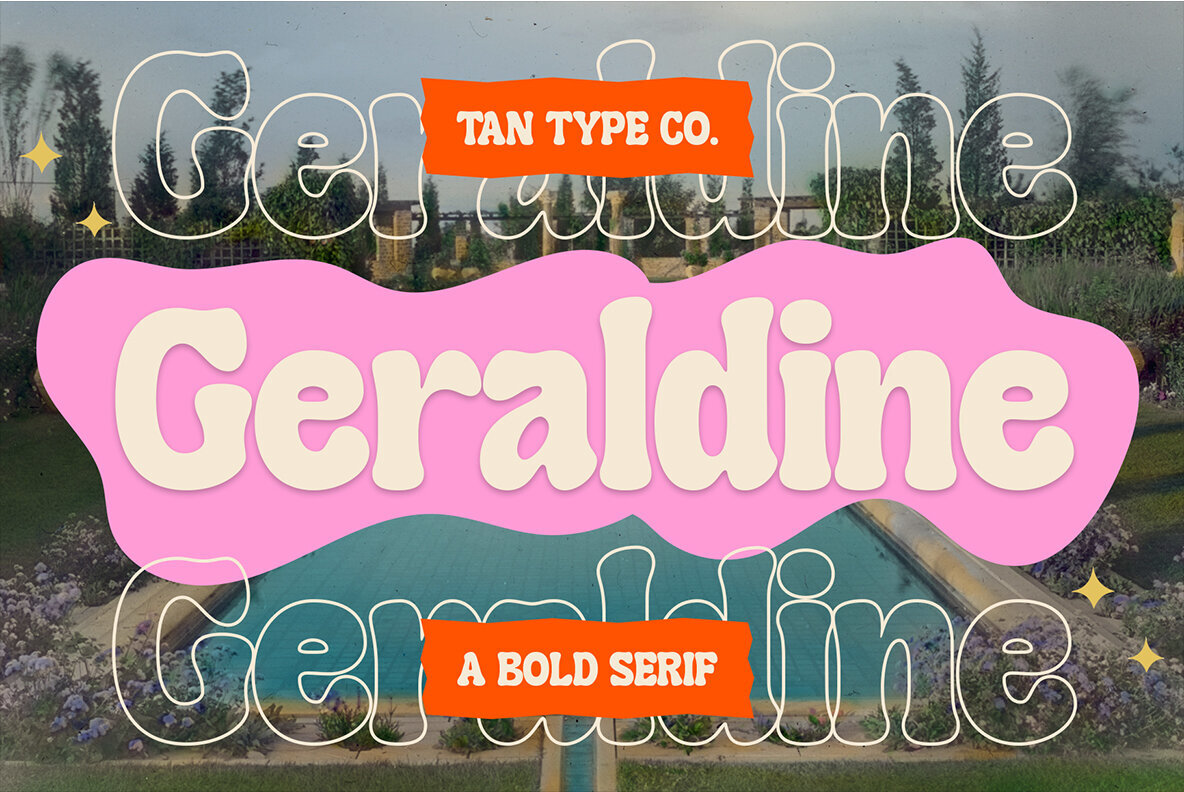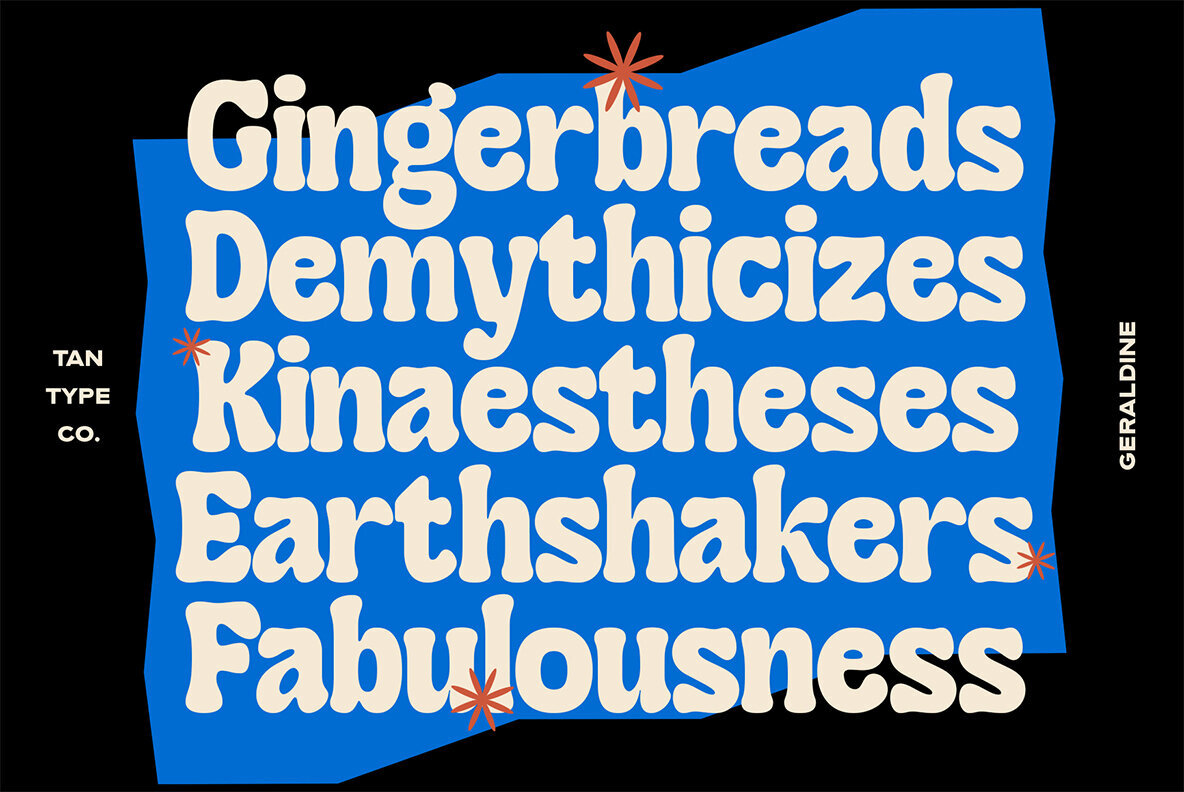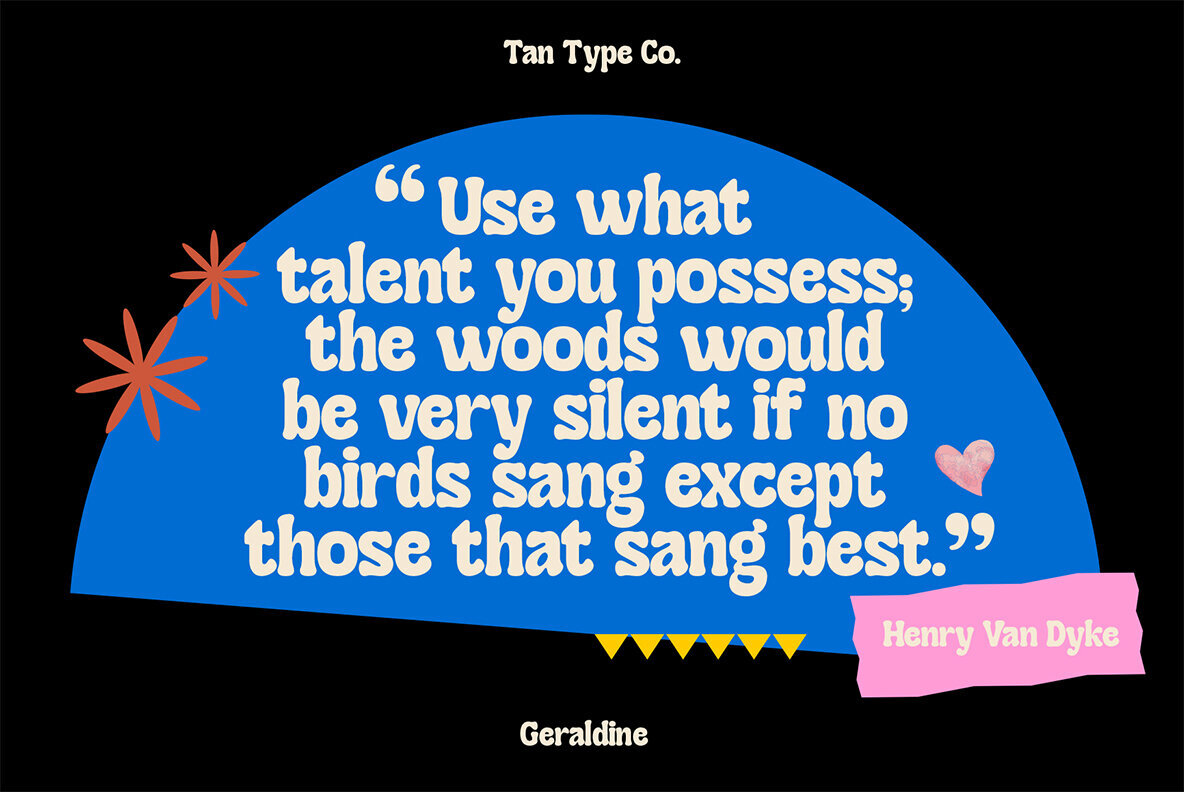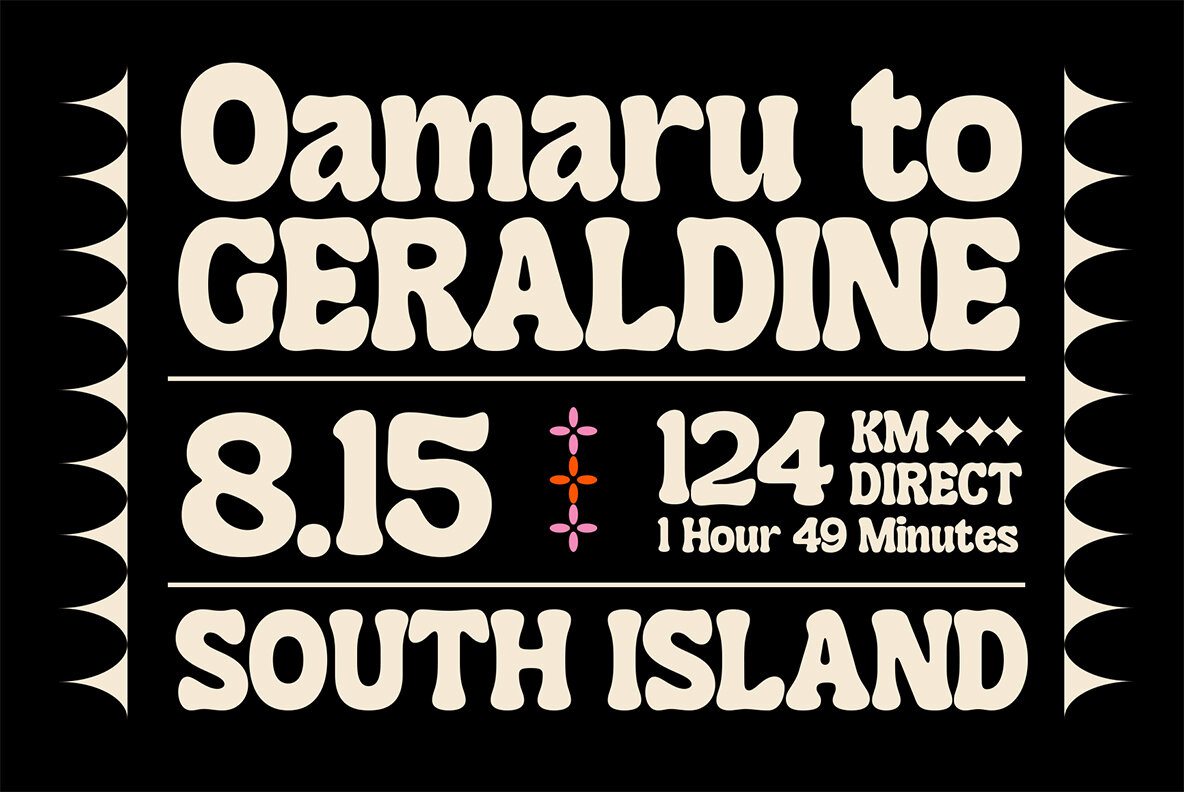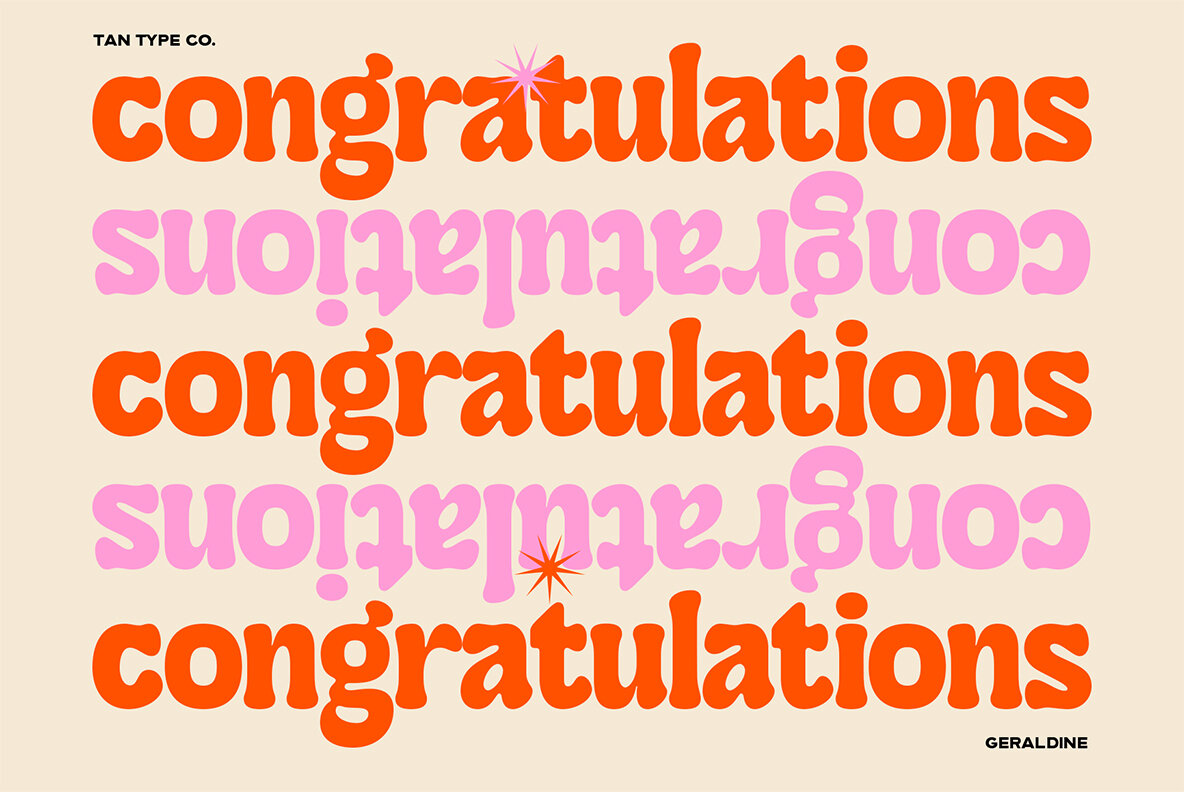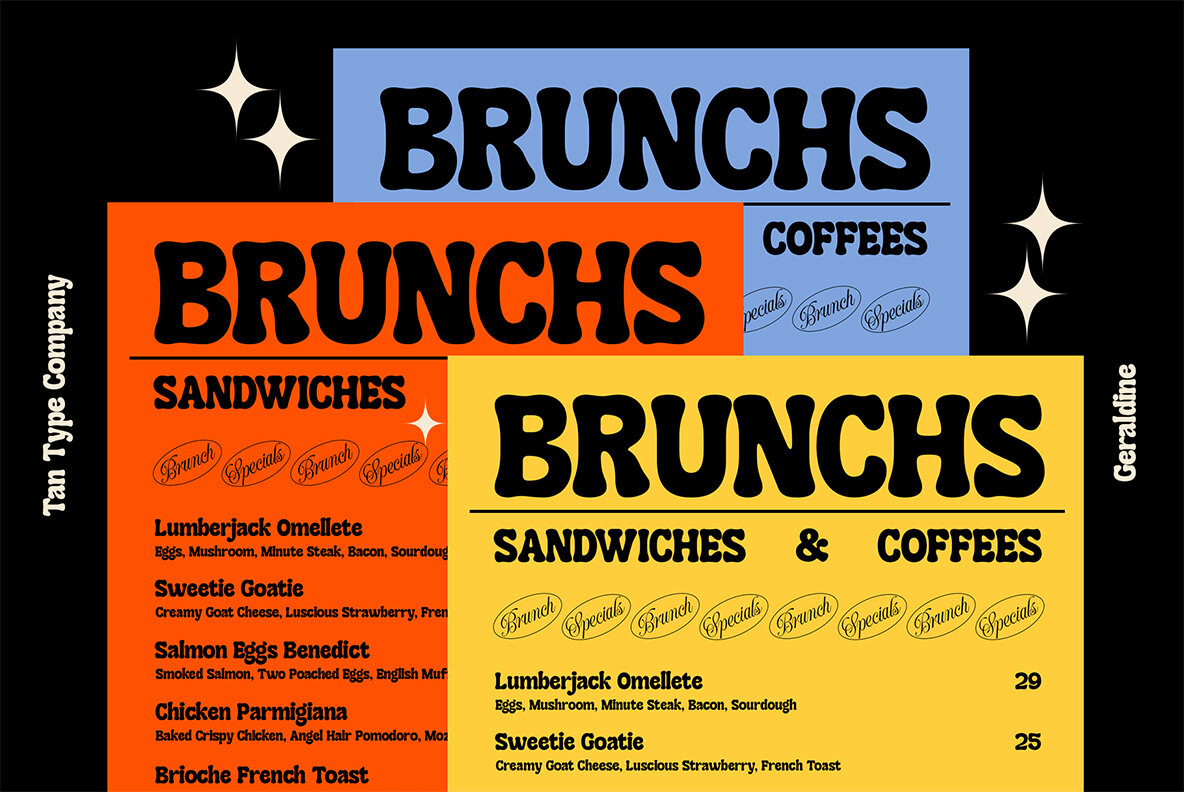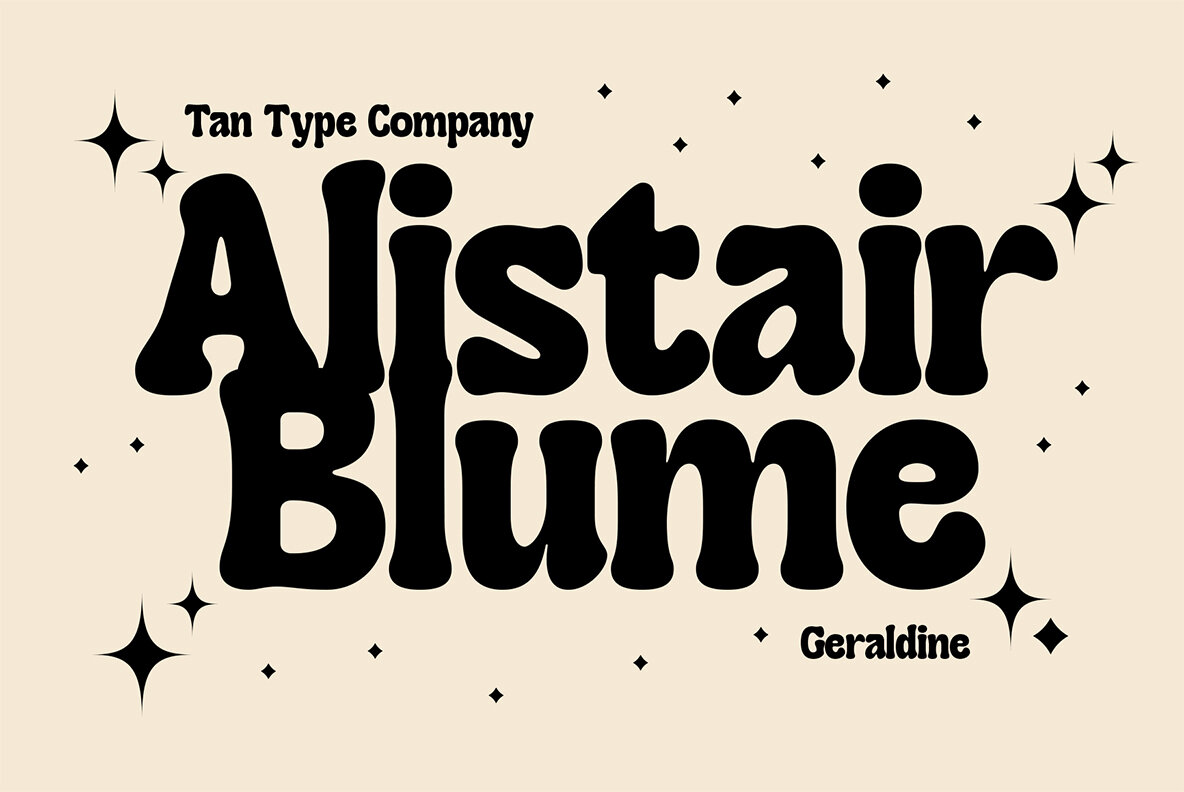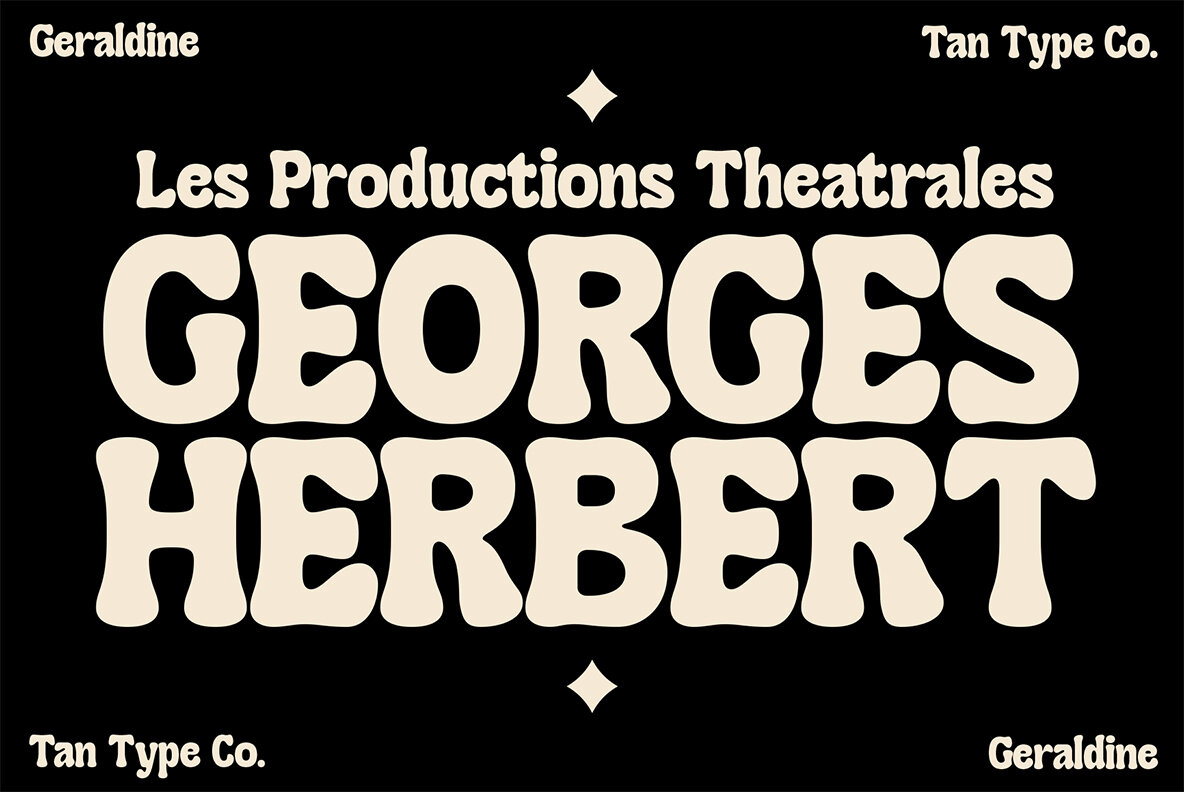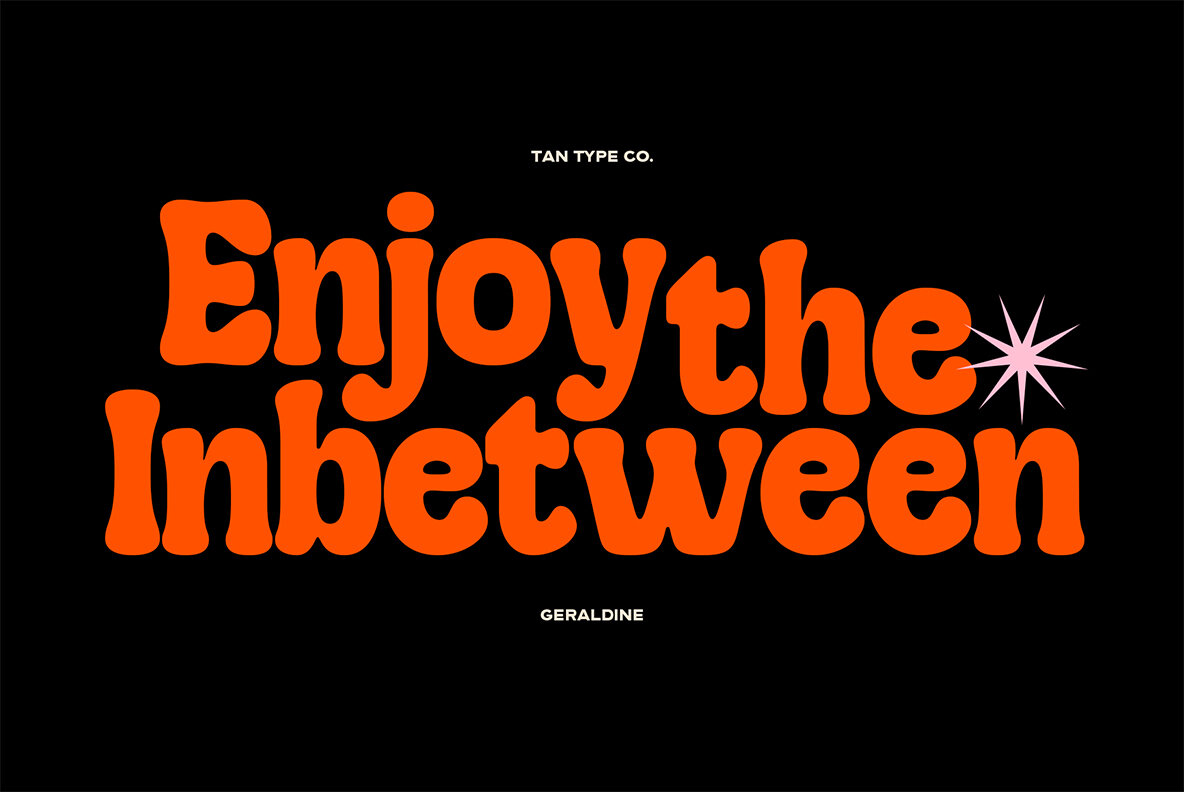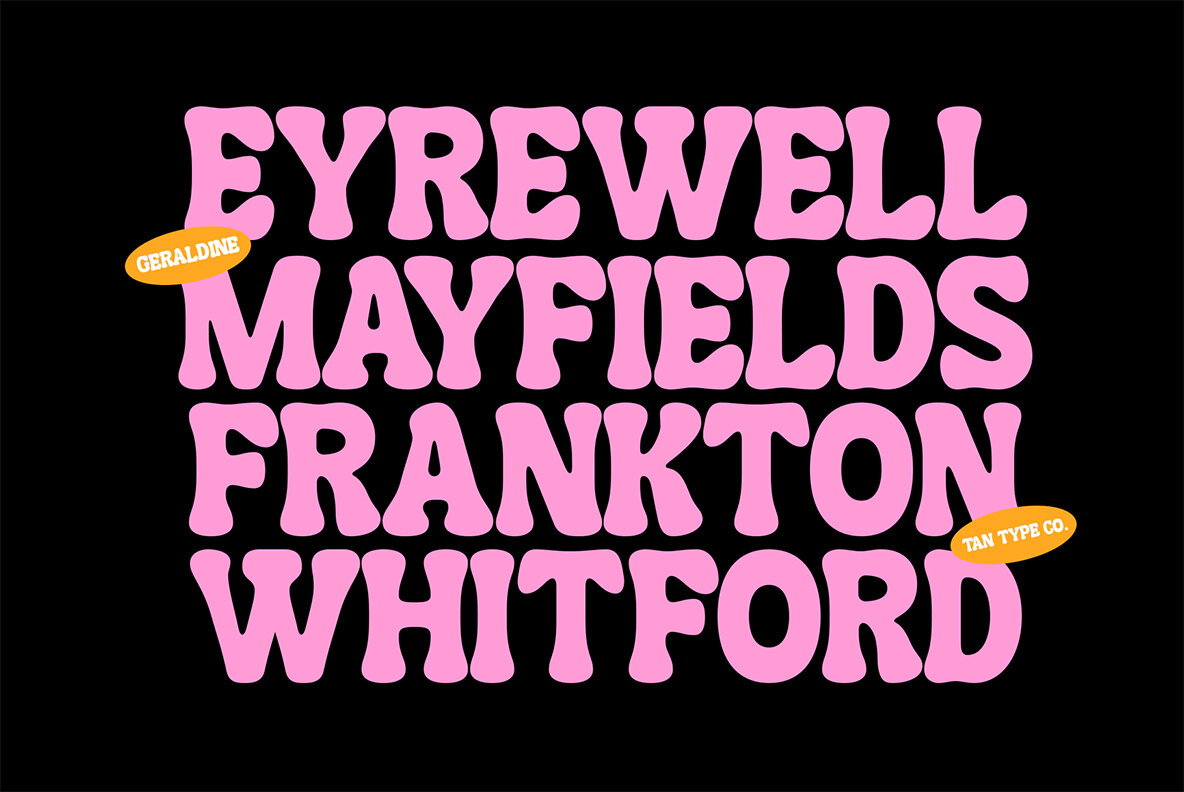
TAN GERALDINE Font
TAN GERALDINE Regular
Discover a captivating serif font that merges elegance with charm. TAN-GERALDINE, with its retro-inspired design, imbues your projects with a timeless vintage aura while maintaining freshness and approachability. The font's smooth, rounded serifs exude warmth and friendliness, offering versatile applications ranging from sophisticated branding to casual events. Its unique character is equally at home in high-end fashion designs and quirky marketing campaigns.TAN-GERALDINE: A Retro-Inspired Bold Soft Serif